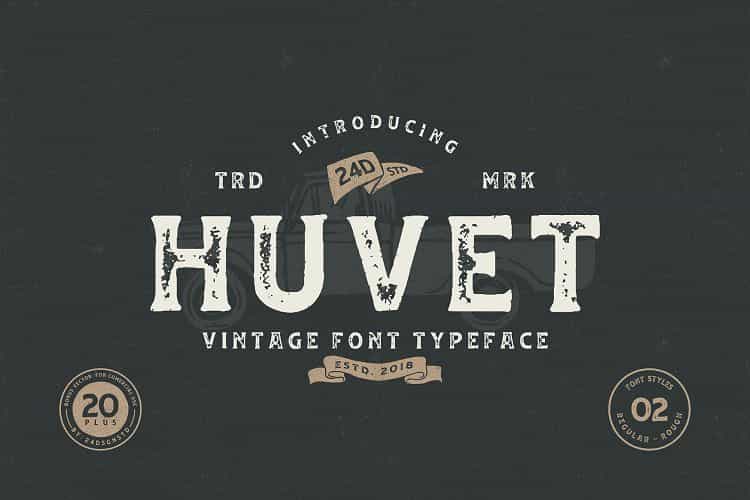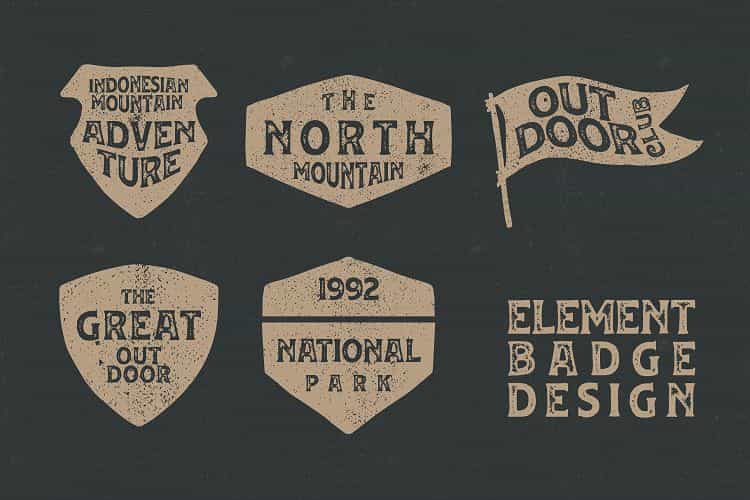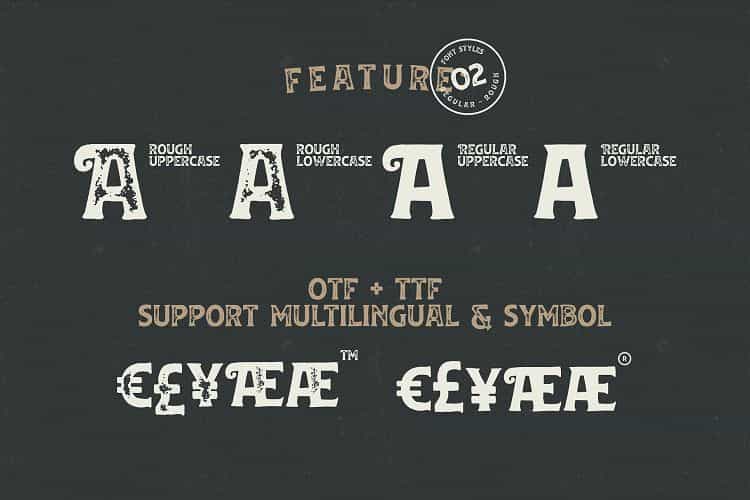
Huvet Vintage Font
Introducing Huvet Font. Huvet Font is a very attractive font. The masculine form of it suits well for logos, typography and product labels that need a classical and manly look.